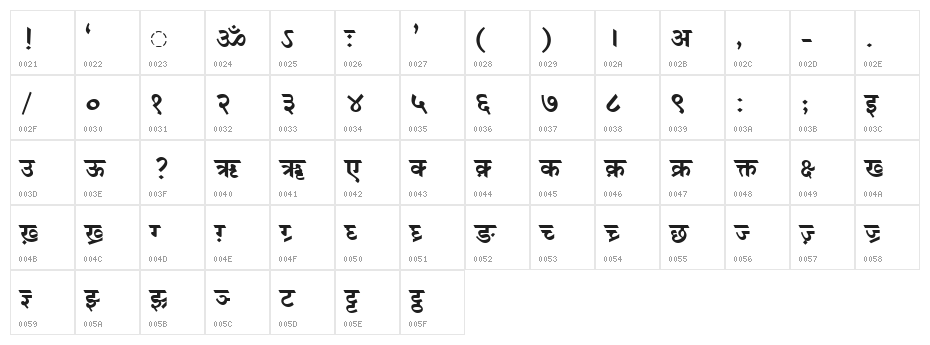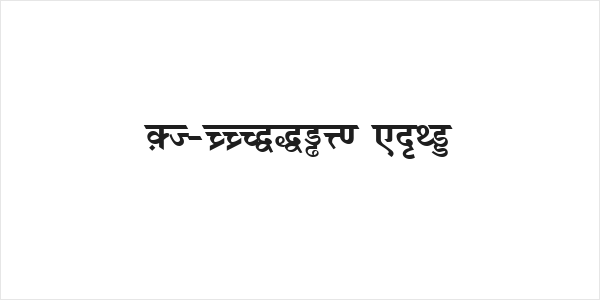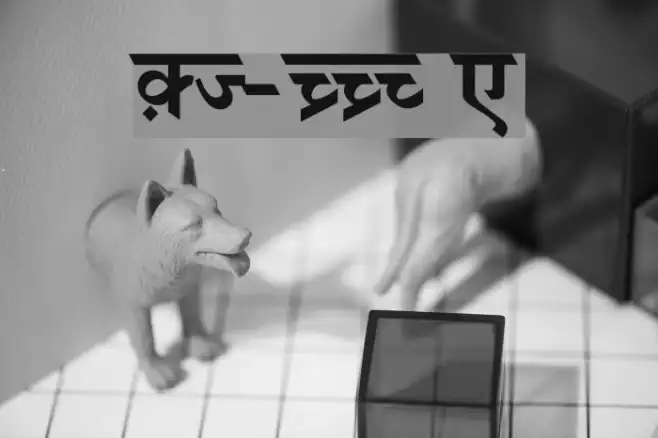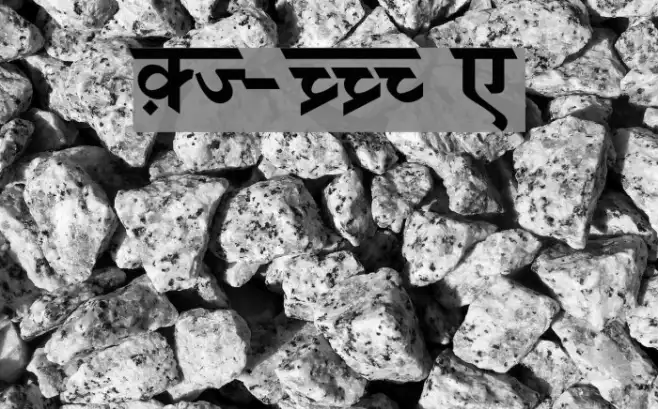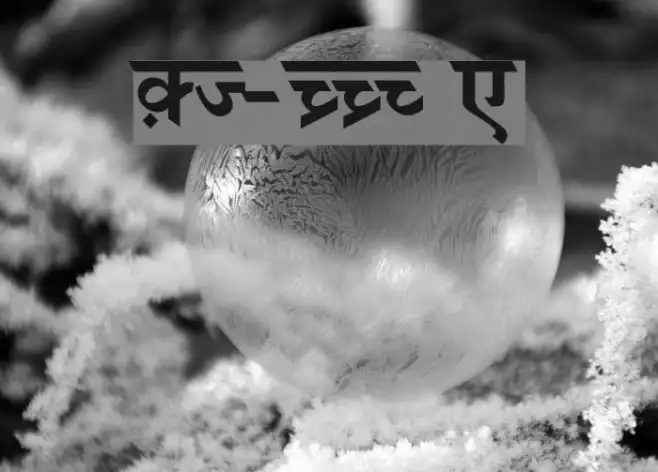
DV-TTSurekh Bold Font
DV-TTSurekh Bold Description
This font is a bold and striking representation of the Devanagari script, characterized by its thick strokes and strong presence. The characters are well-defined with a consistent weight throughout, making them highly legible. The design incorporates traditional elements of the script while adding a modern touch with its boldness. The spacing between characters is balanced, ensuring clarity and readability. This font is suitable for various applications where a strong and impactful Devanagari script is required.
| Use Case | Headlines, Signage, Posters |
| Proposed Projects | Ideal for headlines, signage, posters, and any project requiring a bold Devanagari script. |